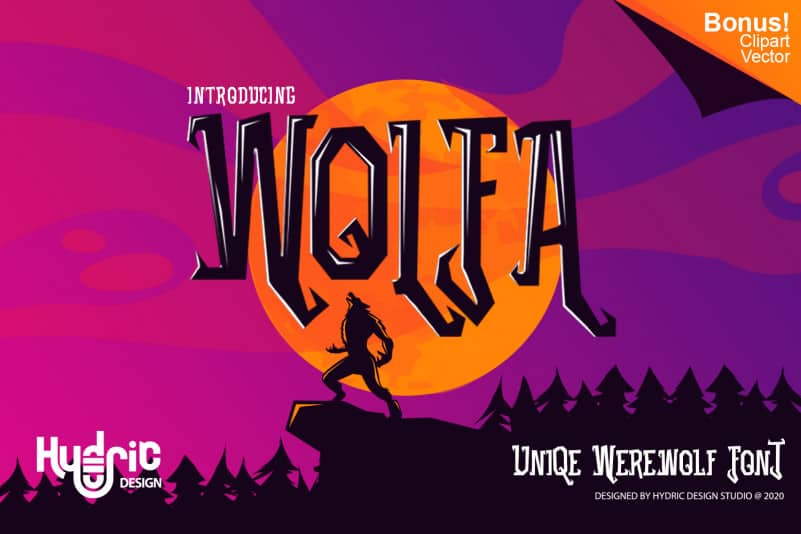
Wolfa Display Font is a Fantasy, Creepy, Mystical feel with lots of curly and sharp , this font inspired by a wolf nails of angry werewolf and fantasy character.